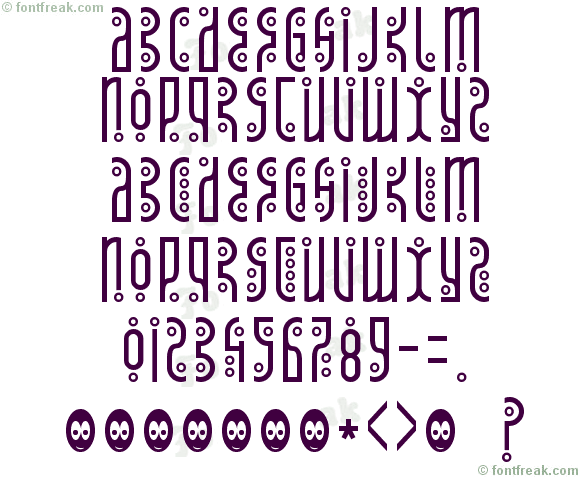
Tantrum Tongue
TantrumTongue, crafted by the talented Pizzadude, is a distinctive display font that merges playful whimsy with artistic flair. This freeware typeface is characterized by its unique, exaggerated letterforms that hint at a sense of movement and emotion, making it an eye-catching choice for various design projects. The font showcases a medium stroke weight with a moderate contrast, providing a balanced readability while maintaining its decorative essence. The spacing between characters is deliberately open, enhancing legibility and allowing the font's quirky details to shine.
TantrumTongue is perfect for a range of specific applications. It can be used effectively in children’s book covers, where its playful style captures the imagination. Additionally, it works wonderfully for event flyers, especially those targeting a younger audience, as its energetic vibe conveys excitement. The font is also suitable for unique restaurant menus, offering a fun and inviting aesthetic that can enhance the dining experience. Graphic designers will find it ideal for branding projects that need a touch of personality, while content creators can use it in social media graphics to draw attention.
The target audience for TantrumTongue includes graphic designers, small business owners looking to create memorable branding, and content creators seeking to add a distinctive flair to their work. This font stands out due to its ability to evoke emotions and engage viewers, making it an excellent choice for projects that aim to capture attention and inspire creativity. For those interested in incorporating this playful typeface into their designs, a TantrumTongue font free download is available, allowing users to explore its full potential without any cost.